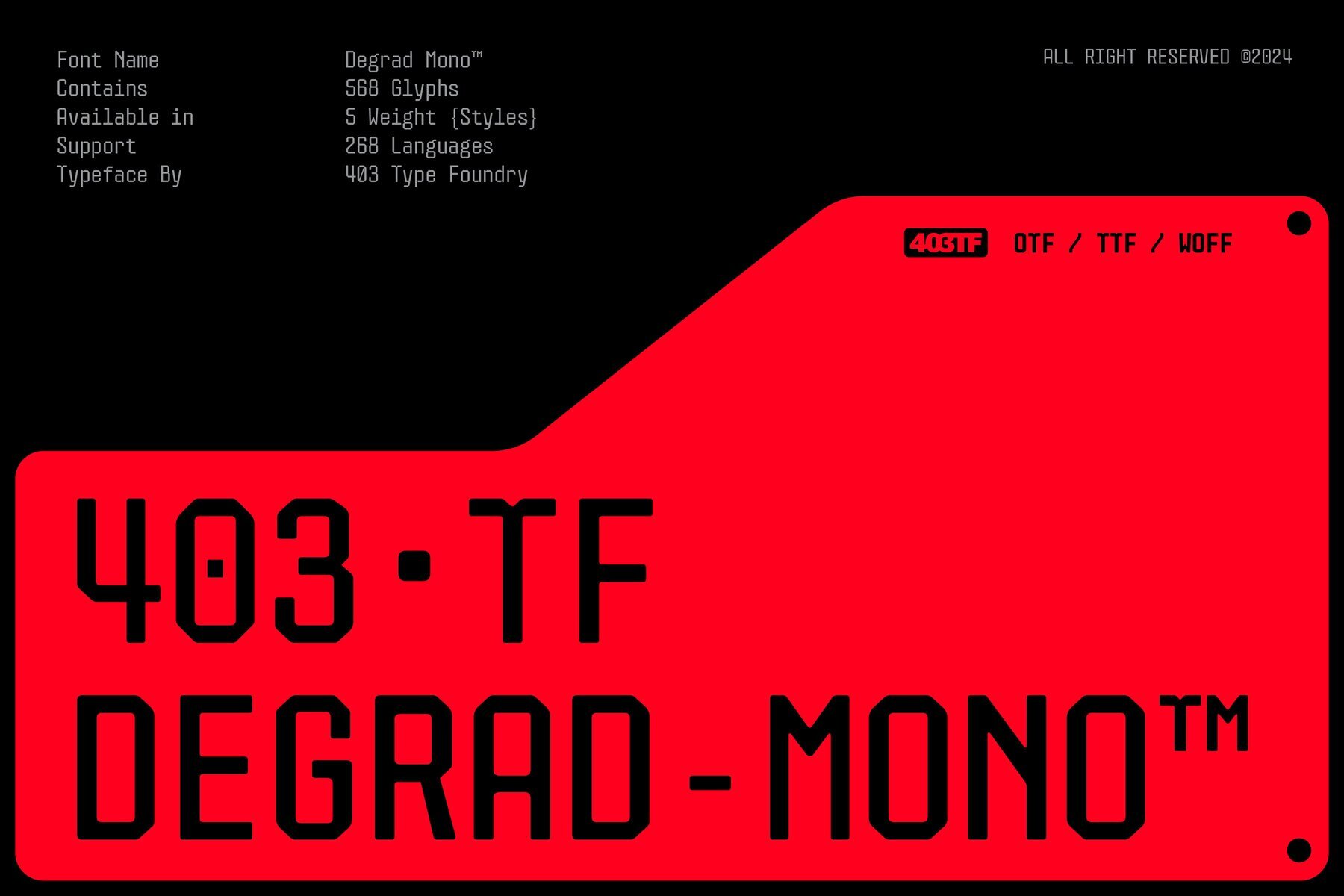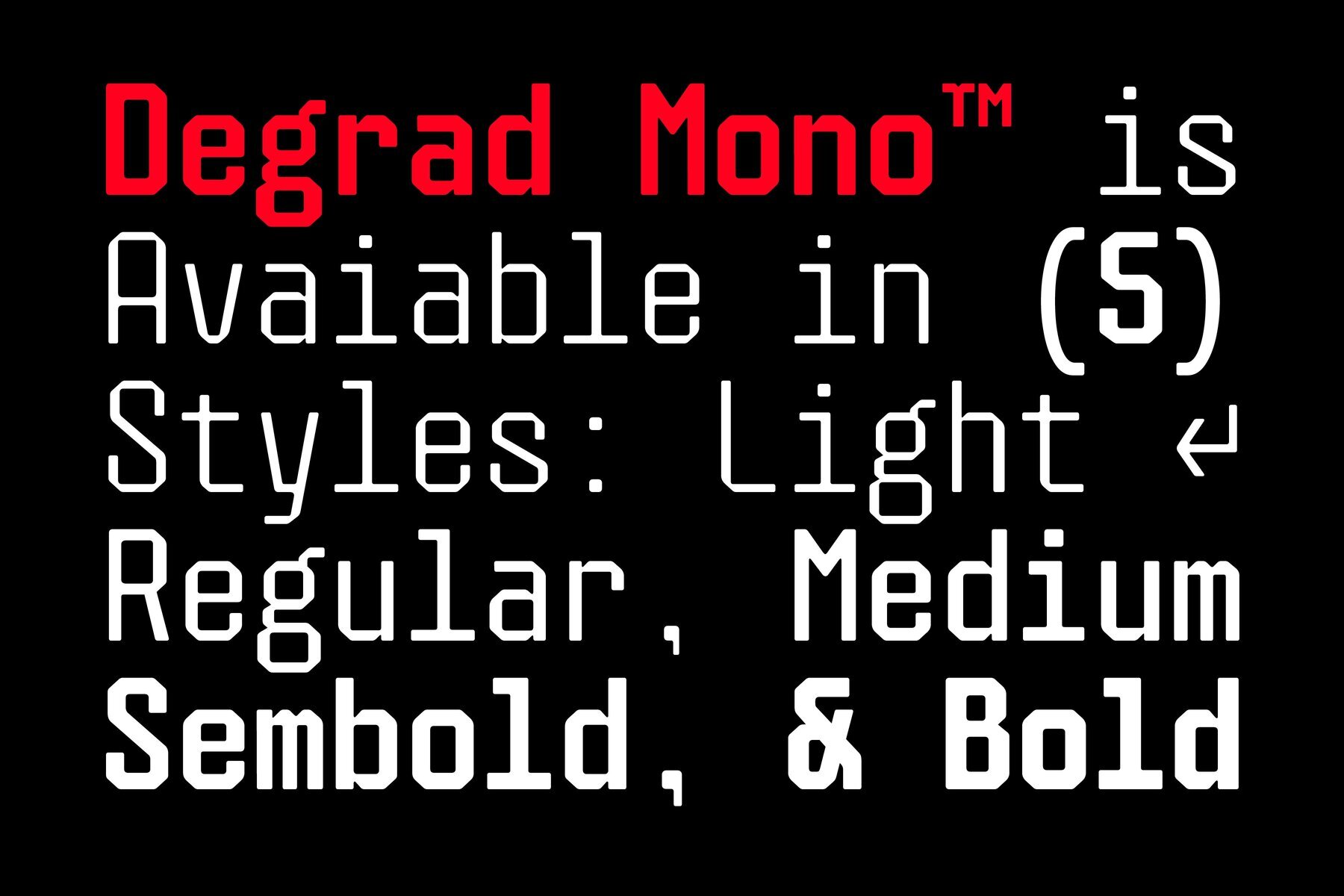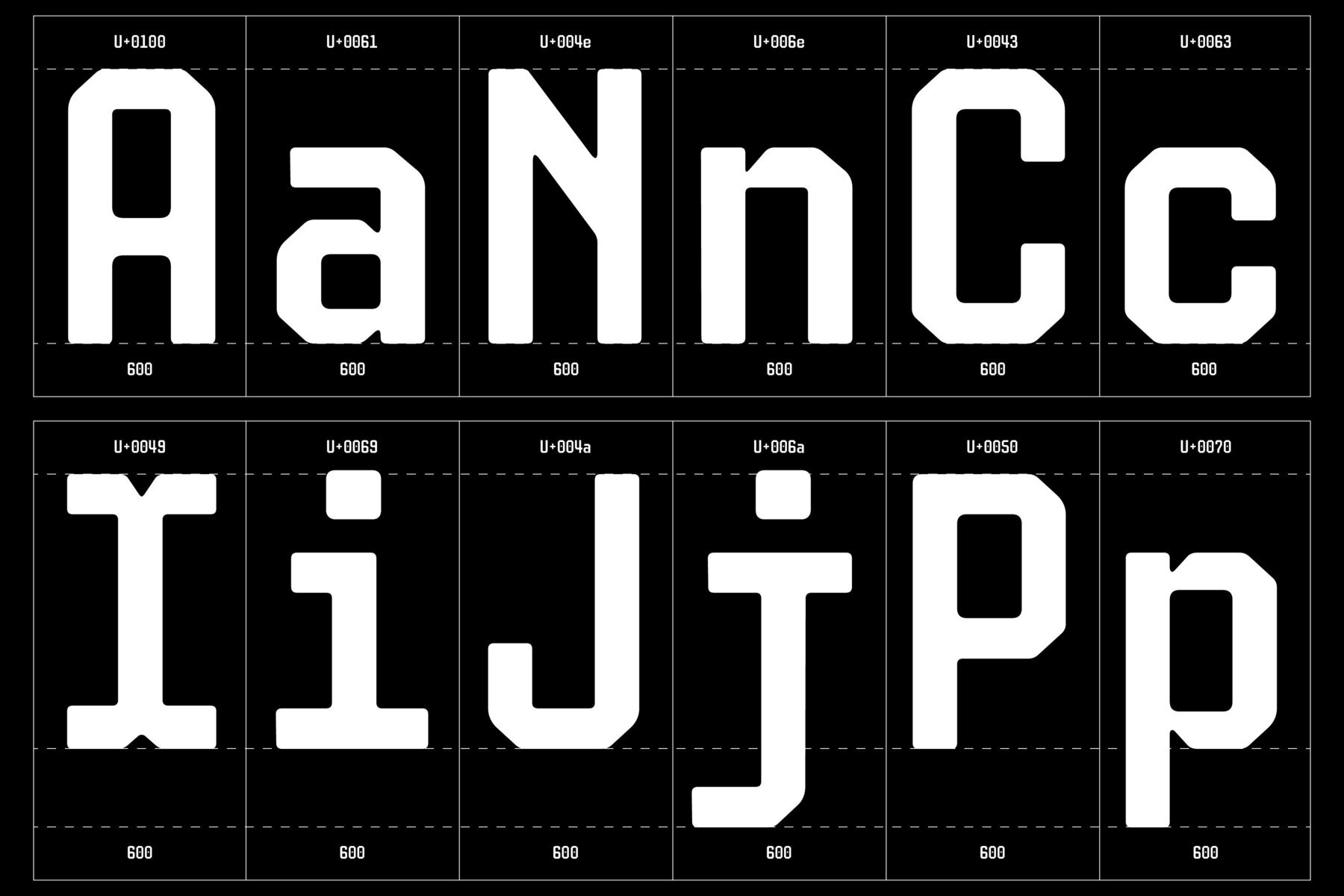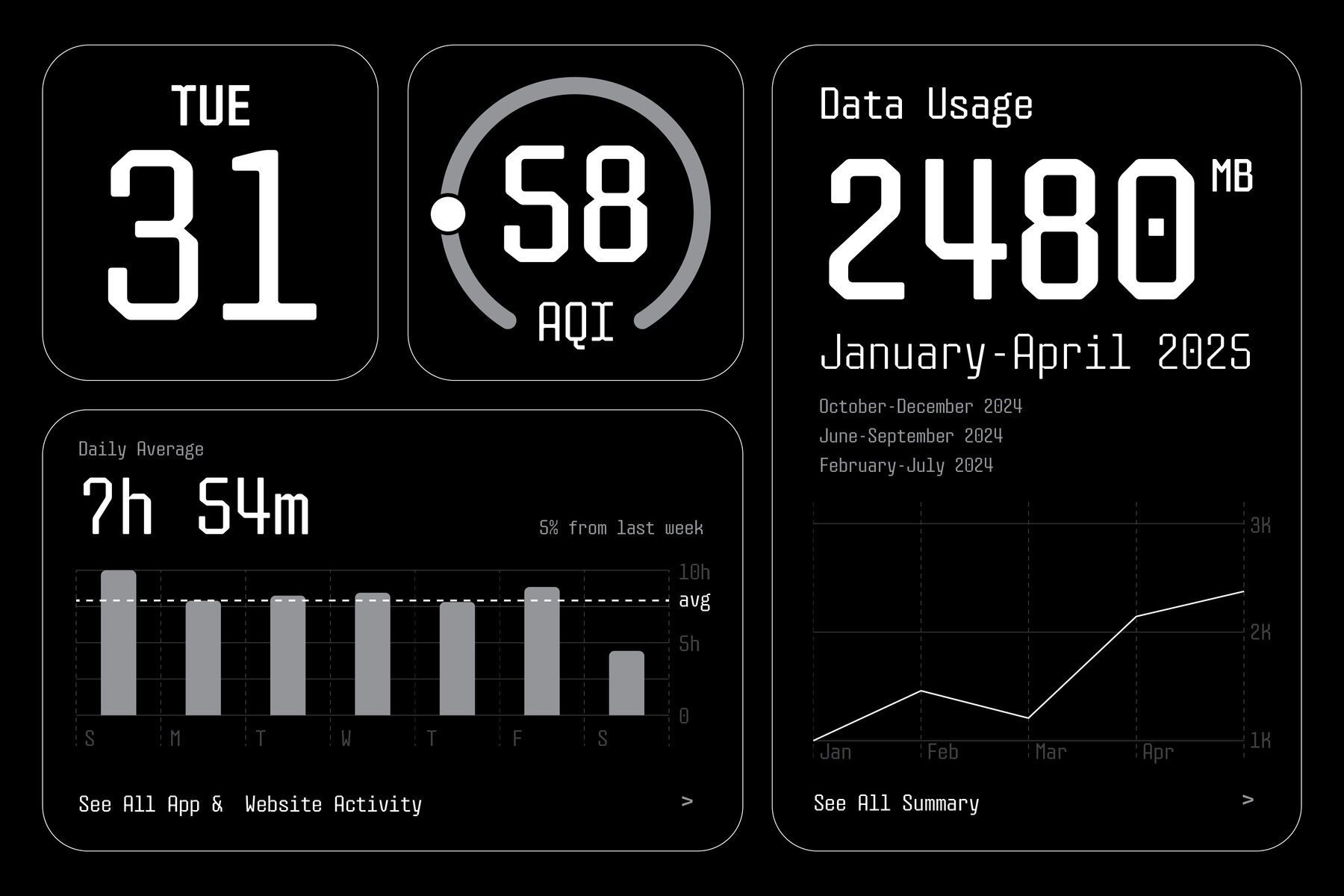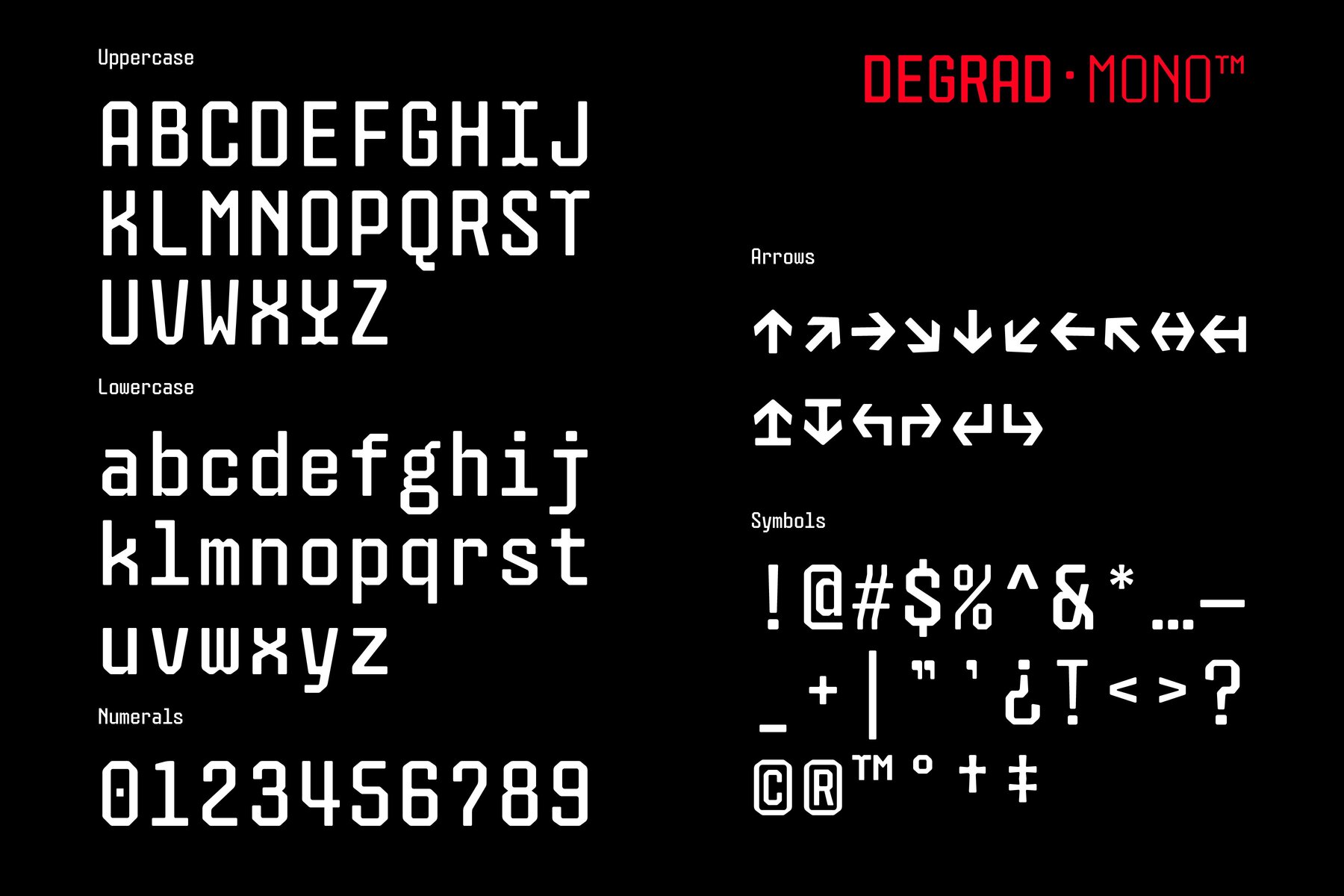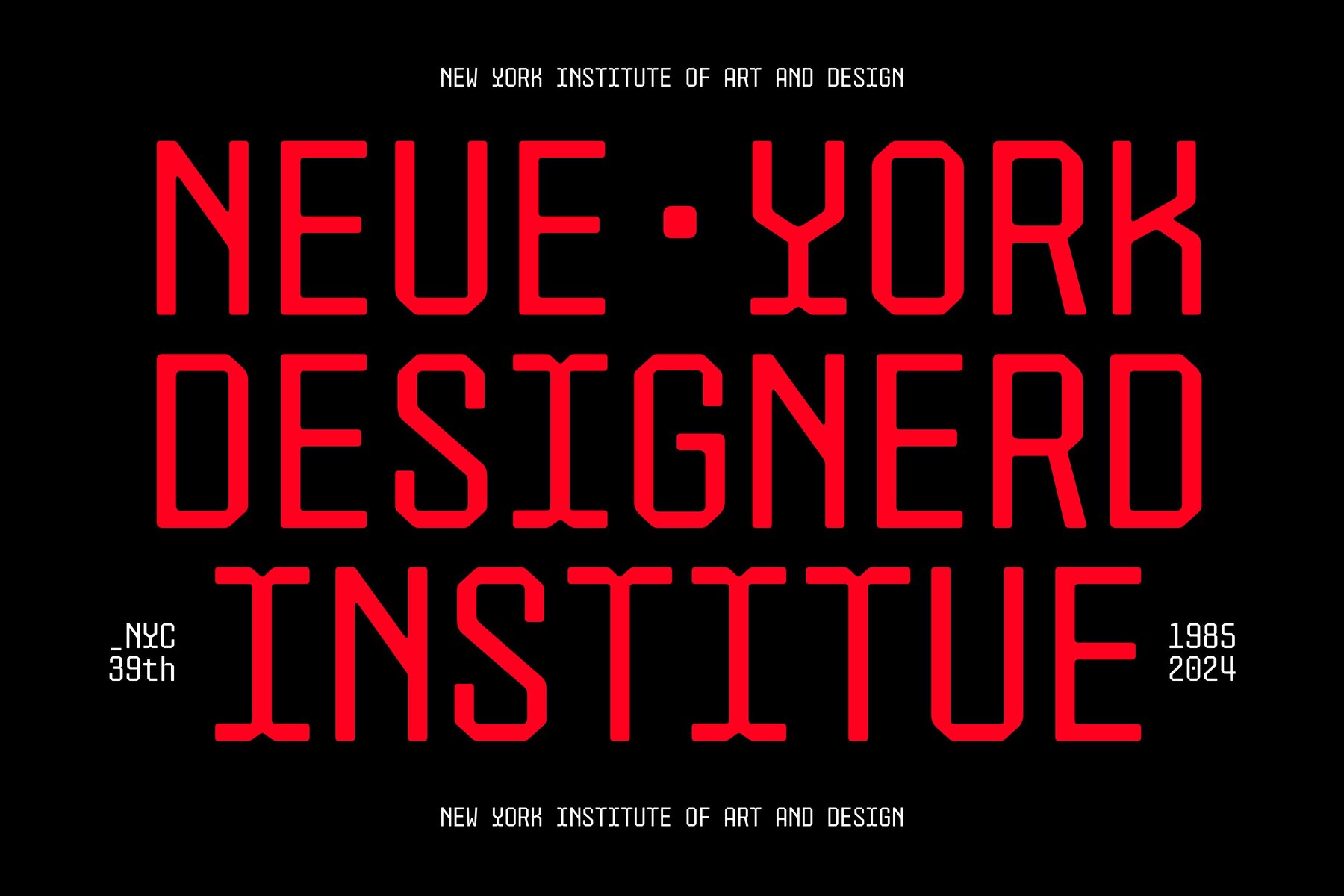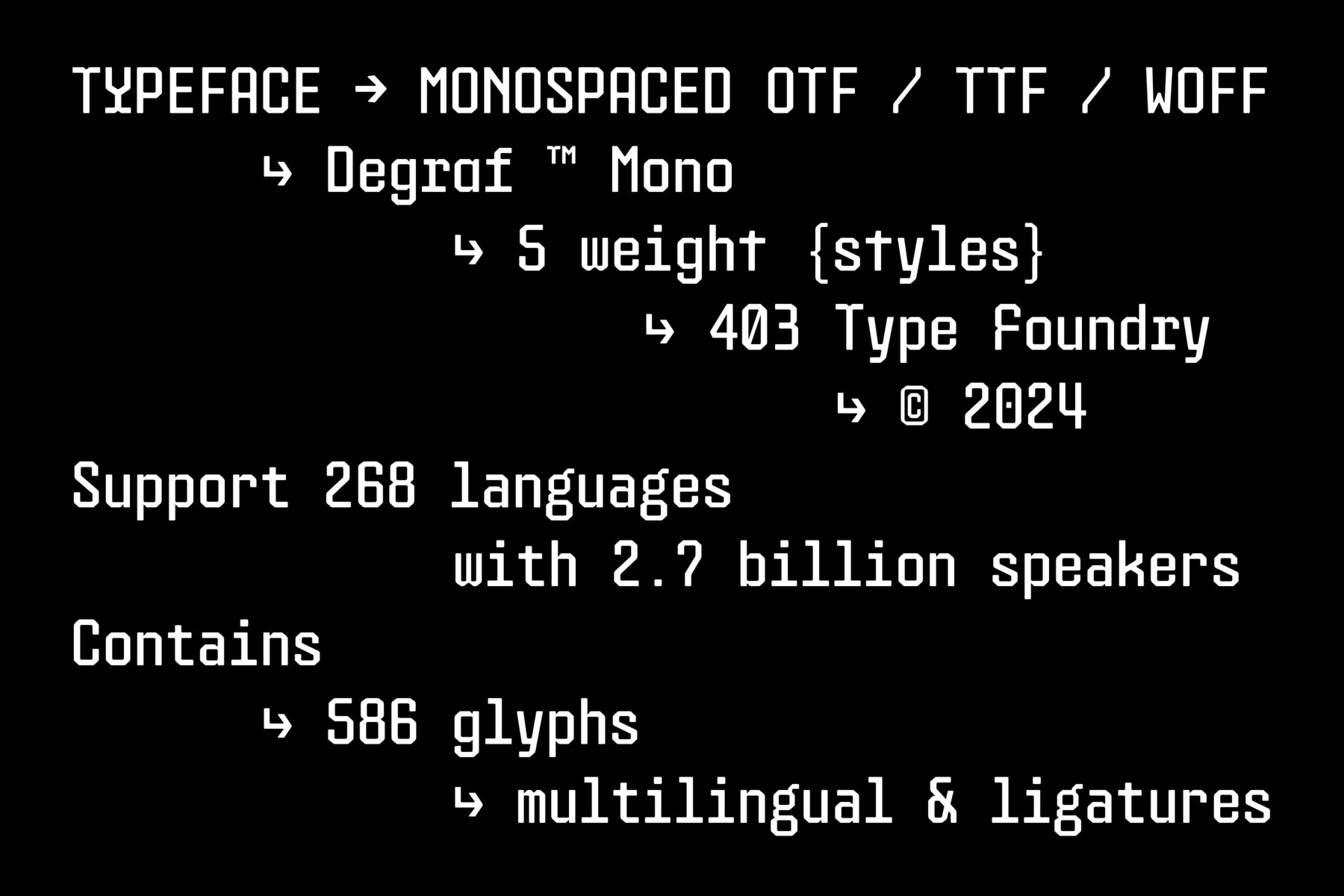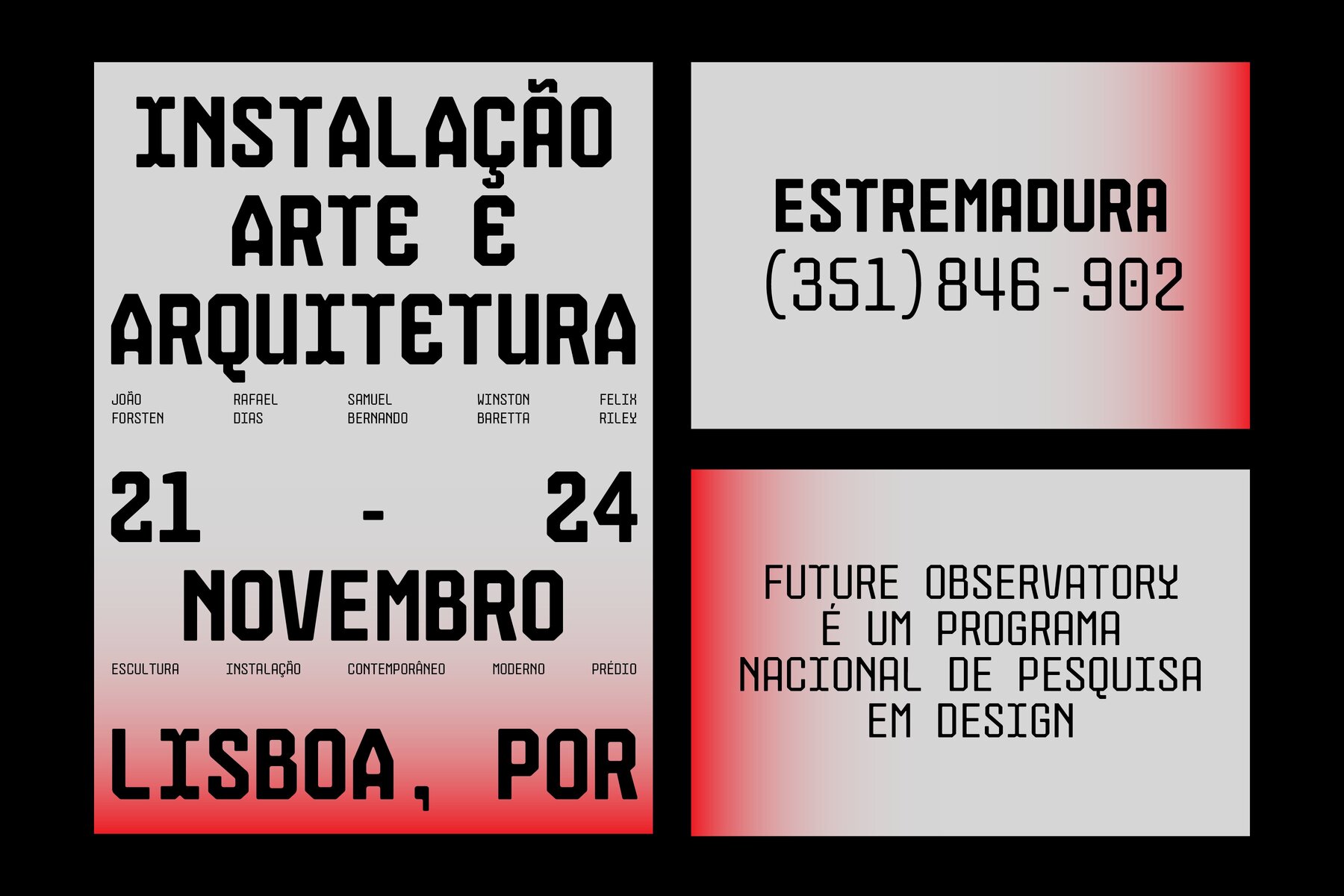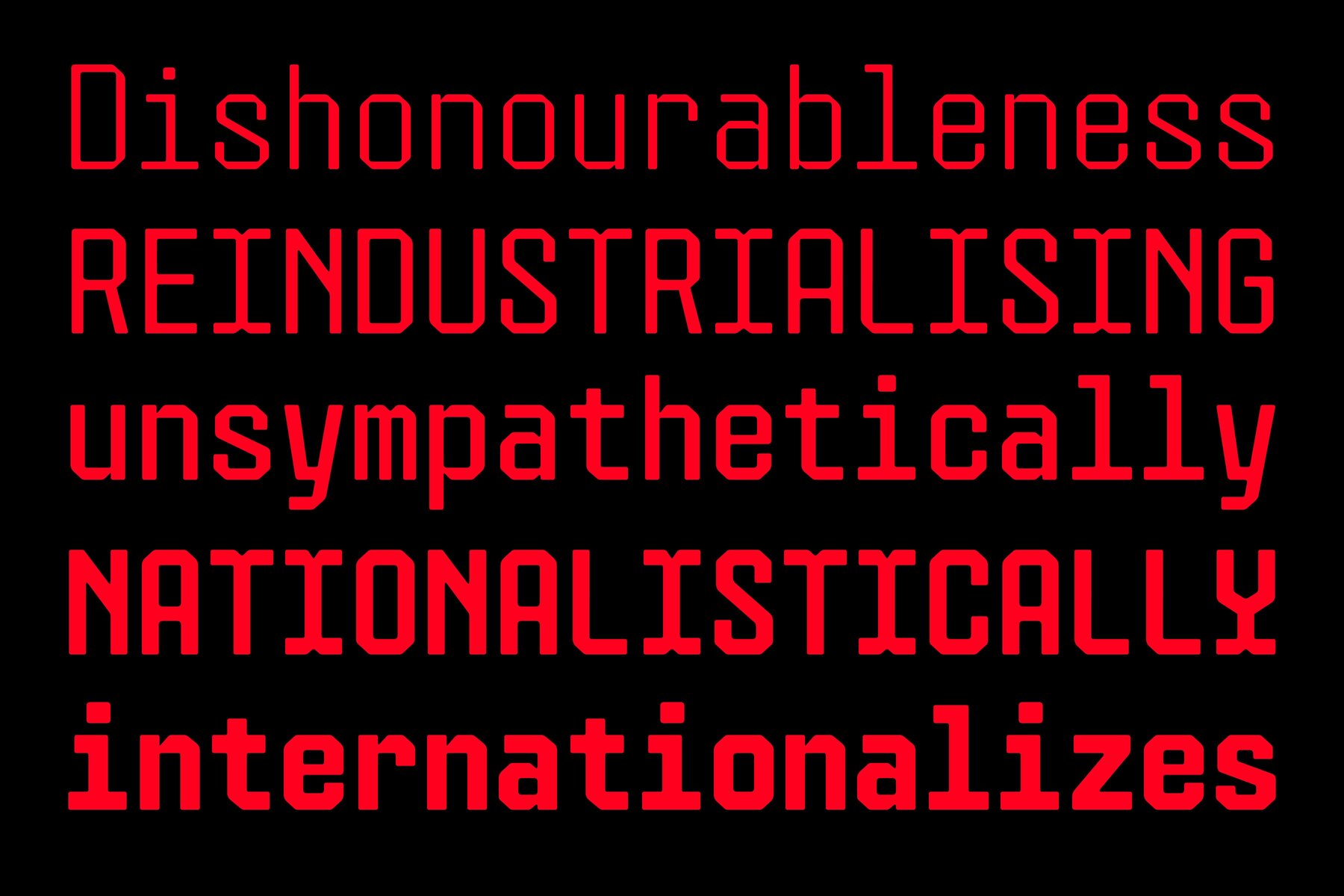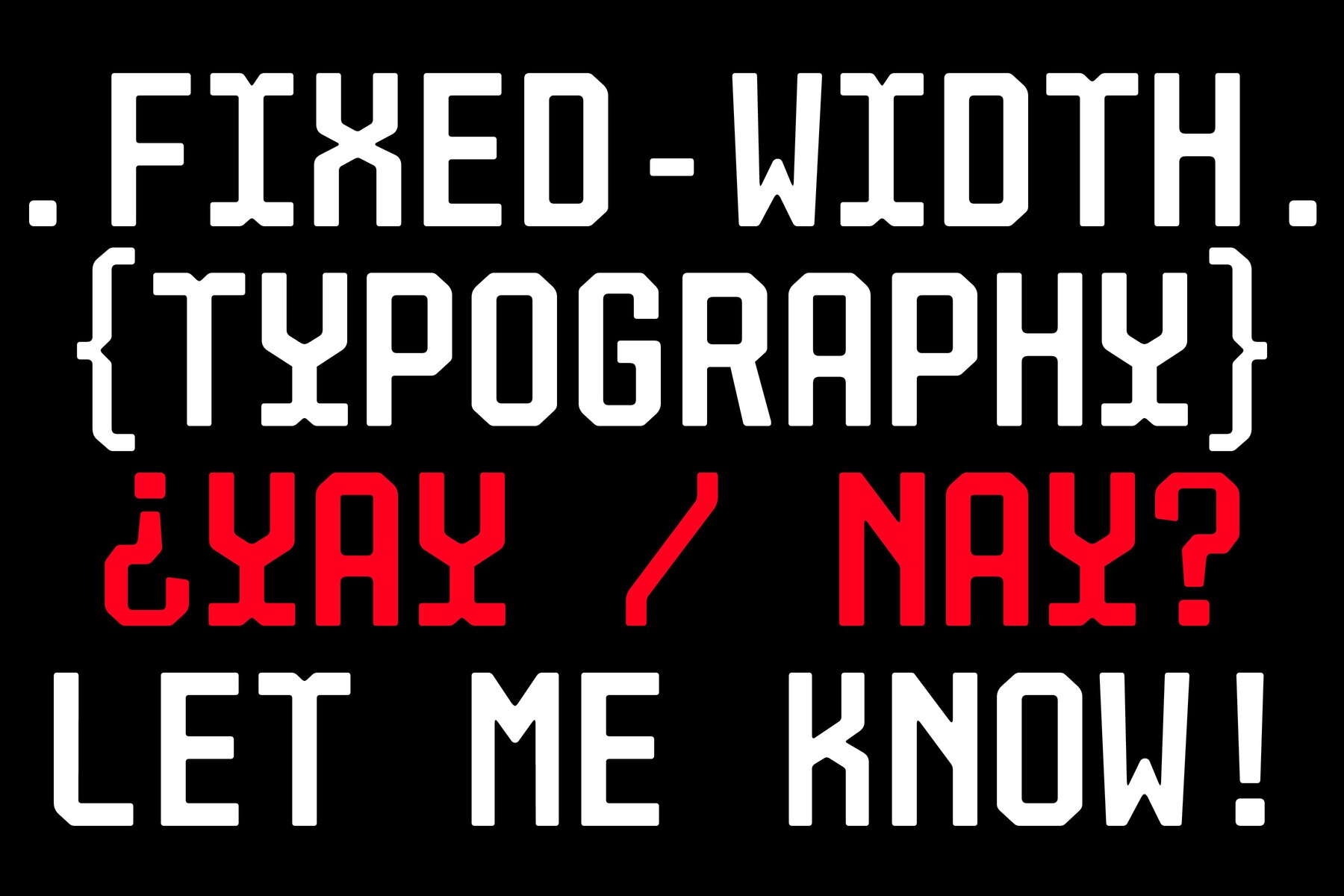
403 Degrad Mono Font
403 Degrad Mono is an excellent choice for projects seeking a modern, structured, and tech-savvy typeface. Its versatility across styles enhances its usability in various design contexts. With five distinct styles—Light, Regular, Medium, Semibold, and Bold—this font family provides flexibility and creativity for any project. Each style boasts 568 meticulously crafted glyphs, supporting 268 languages, ensuring your message is always clear and impactful. Perfect for posters, headlines, branding, and more, 403 Degrad Mono combines functionality with aesthetic appeal to elevate your design work.
403 Type Foundry is a creative powerhouse specializing in bold, high-impact typography. With a focus on modern, versatile typefaces, 403 TF crafts unique letterforms that elevate branding, editorial design, and digital experiences.Known for striking aesthetics and precision craftsmanship, 403 Type Foun...